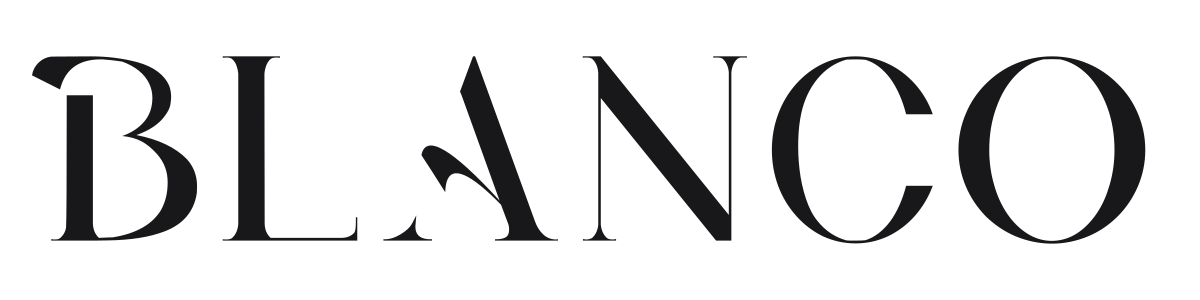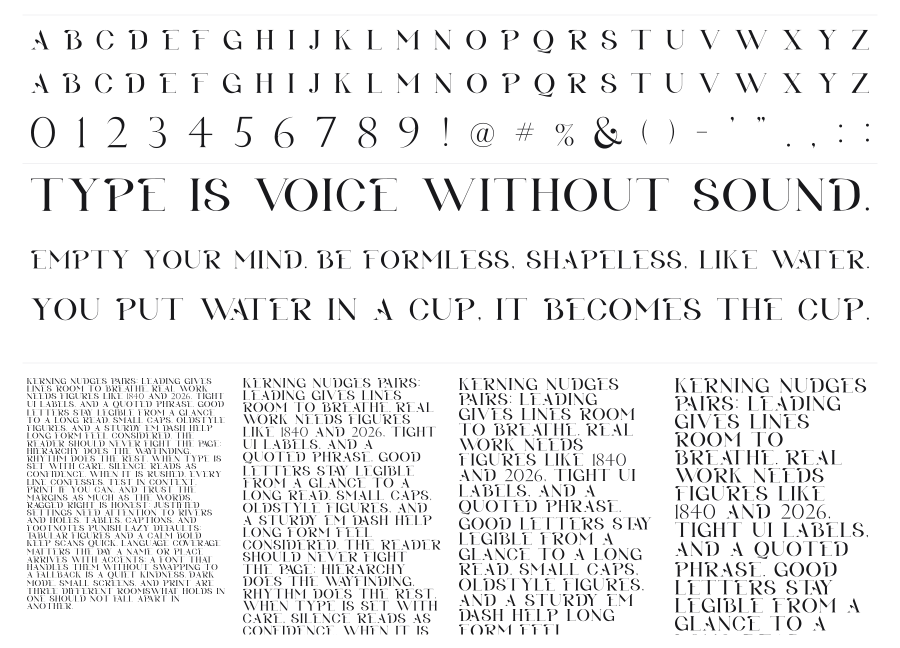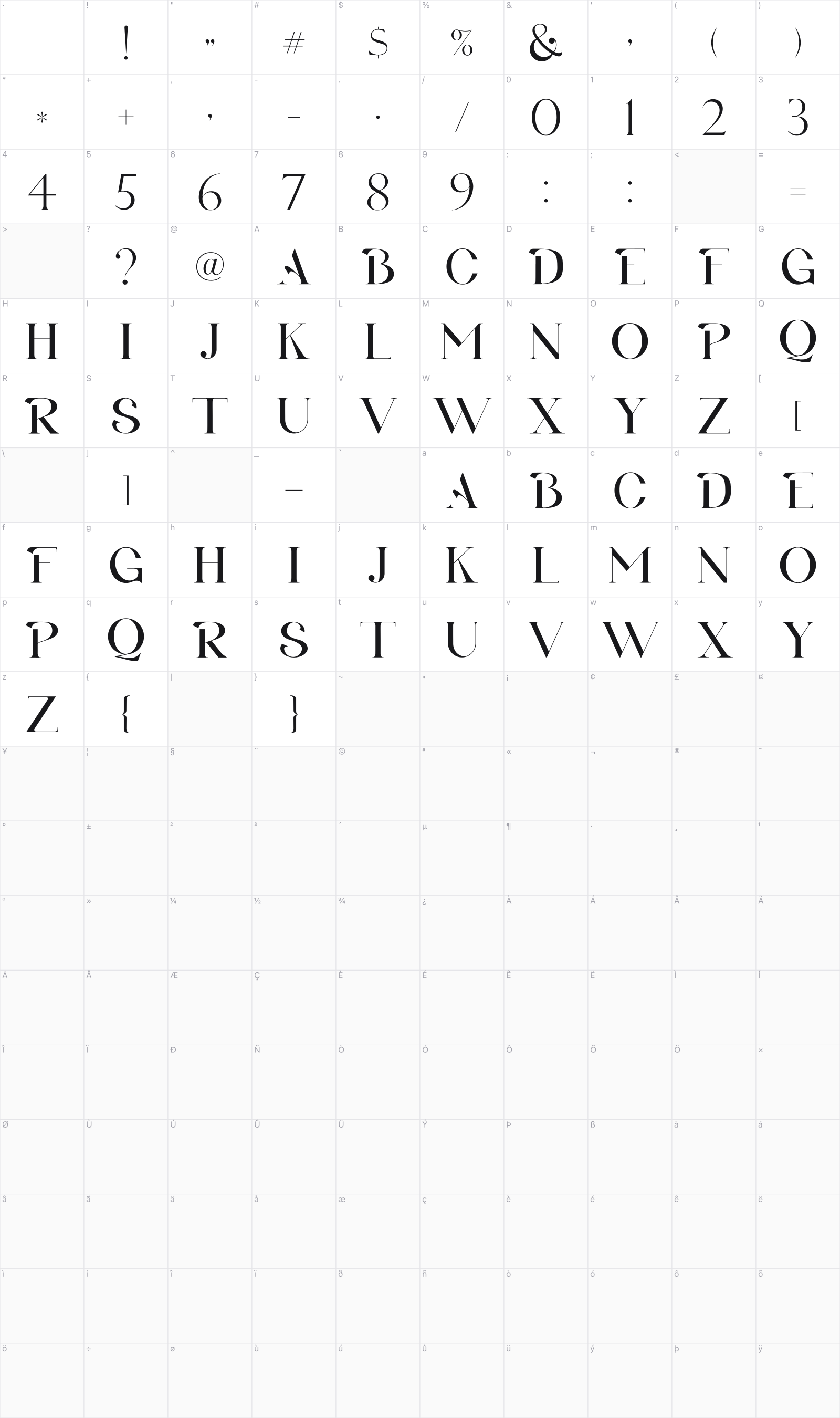
Blanco
Blanco is a high-contrast modern serif built on Didone proportions, with extreme weight variation between its hairline horizontals and bold vertical stems. The generous letter spacing and tall cap height give it an airy, editorial quality that reads as effortlessly luxurious. A natural choice for fashion branding, editorial headlines, and any context where refinement is the message.